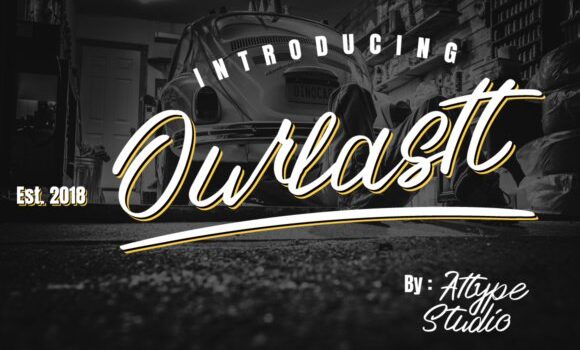
ourlastt
Ourlastt Font – Free Download Introduction to Ourlastt Font The Ourlastt is a modern hand lettering script with dramatic movement. 📸 Preview Gallery 6 images 📌 Product Name Ourlastt Font 👤 Author attypestudio 📂 Category Explore ⬇️ Download Ourlastt Font